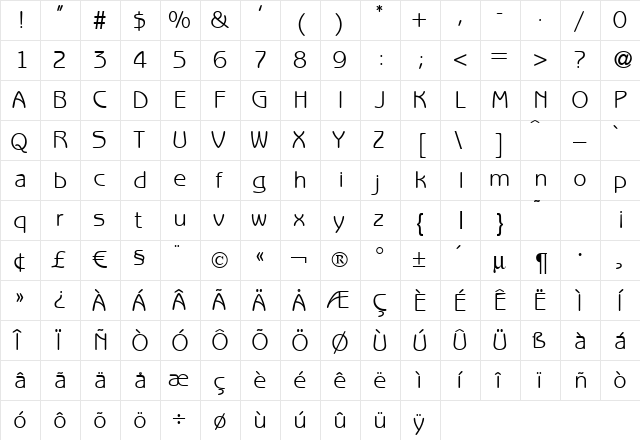
B691-Sans Regular
Design Context for B691-Sans Typeface
B691-Sans offers clean, dependable letterforms without strong stylistic allegiance, making it a practical choice for designers who need flexibility.